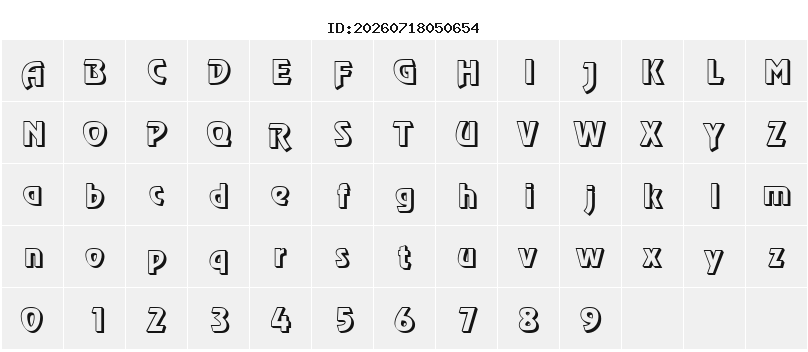
• Font Name: Chorus Line Shadow SSi
• Full Font Name: Chorus Line Shadow SSi
• PostScript Name: ChorusLineShadowSSi
About Chorus Line Shadow SSi.ttf
Chorus Line Shadow SSi.ttf is a modern, elegant sans-serif font designed for ultimate readability and visual harmony. Perfect for branding, headlines, web design, and print materials.